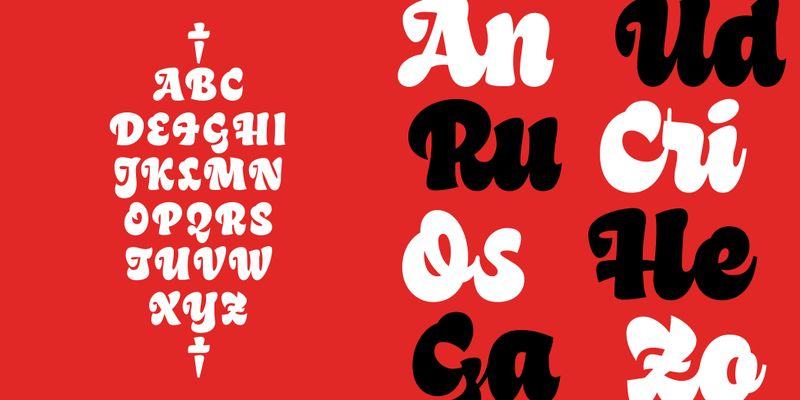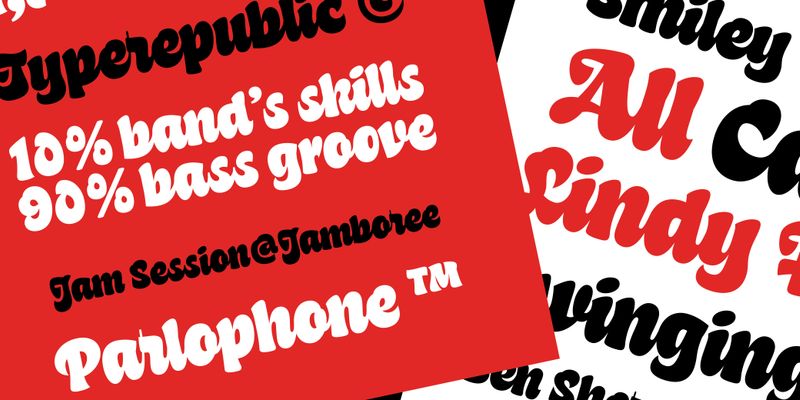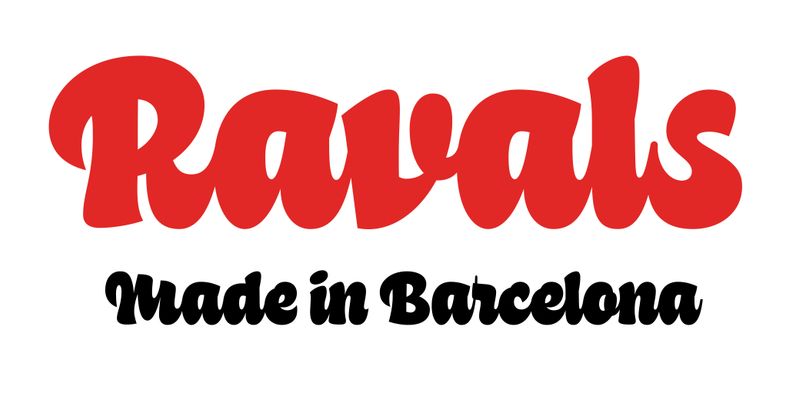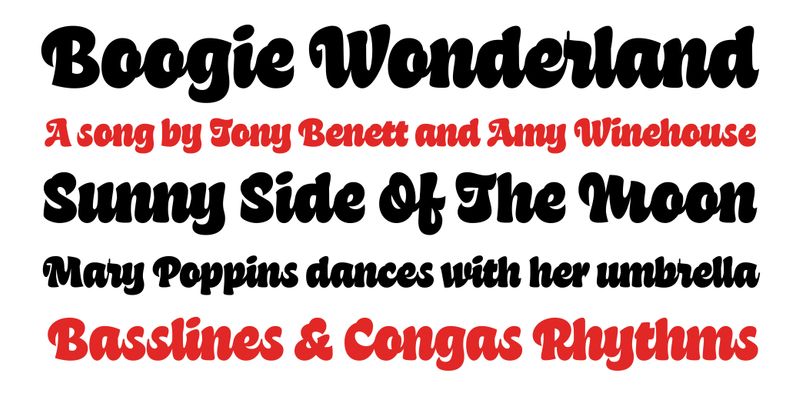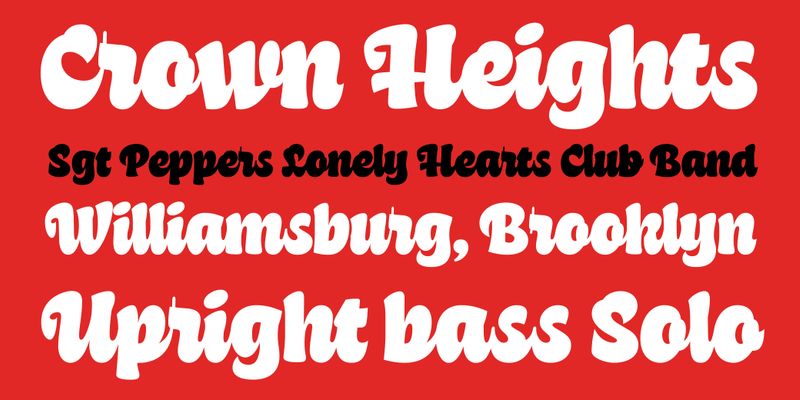
With a funky approach, Ravals is a script typeface intended for display sizes that transforms your text with a unique informal and yet regular texture. Initially inspired by the brush lettering models from the fifties and sixties, it can perfectly fit with music from that era. Besides that, though, the spontaneous design of ‘Ravals’ is mainly a homage to the vitality and rhythm (a.k.a Ravalejar) of one of the most important neighbourhoods in Barcelona under the same name.